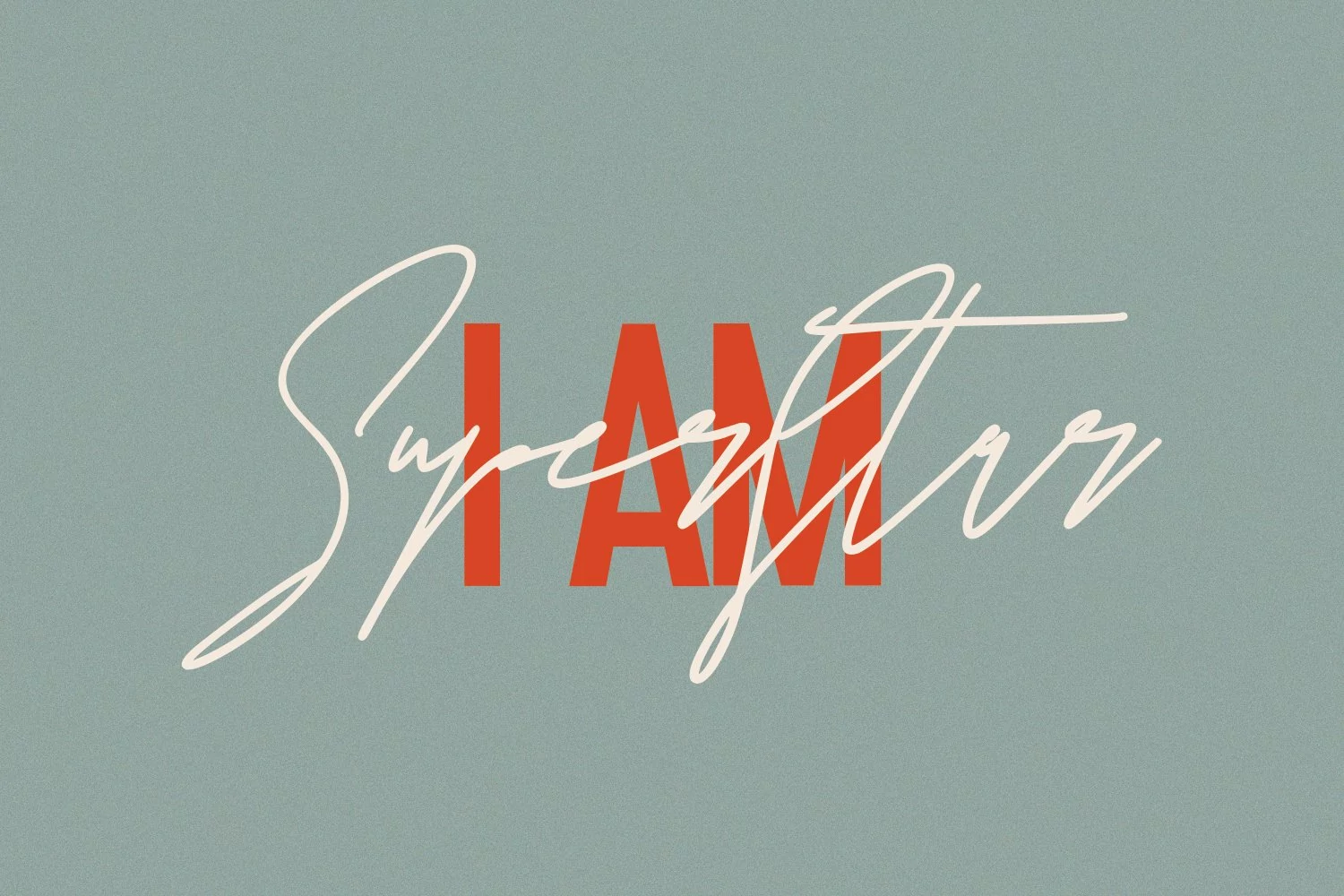
Give your designs an authentic handcrafted feel. **Astrados Signature Font Duo Free Sans** is perfectly suited to signature, stationery, logo, typography quotes, magazine or book cover, website header, clothing, branding, packaging design and more.